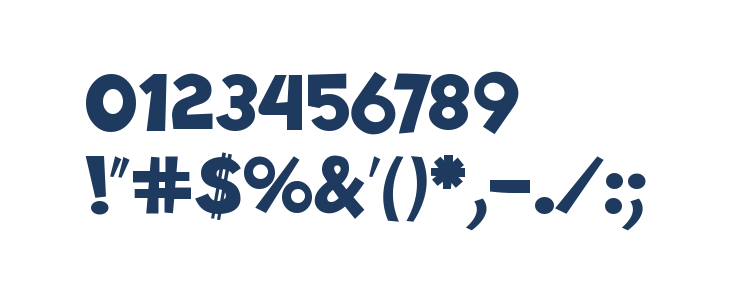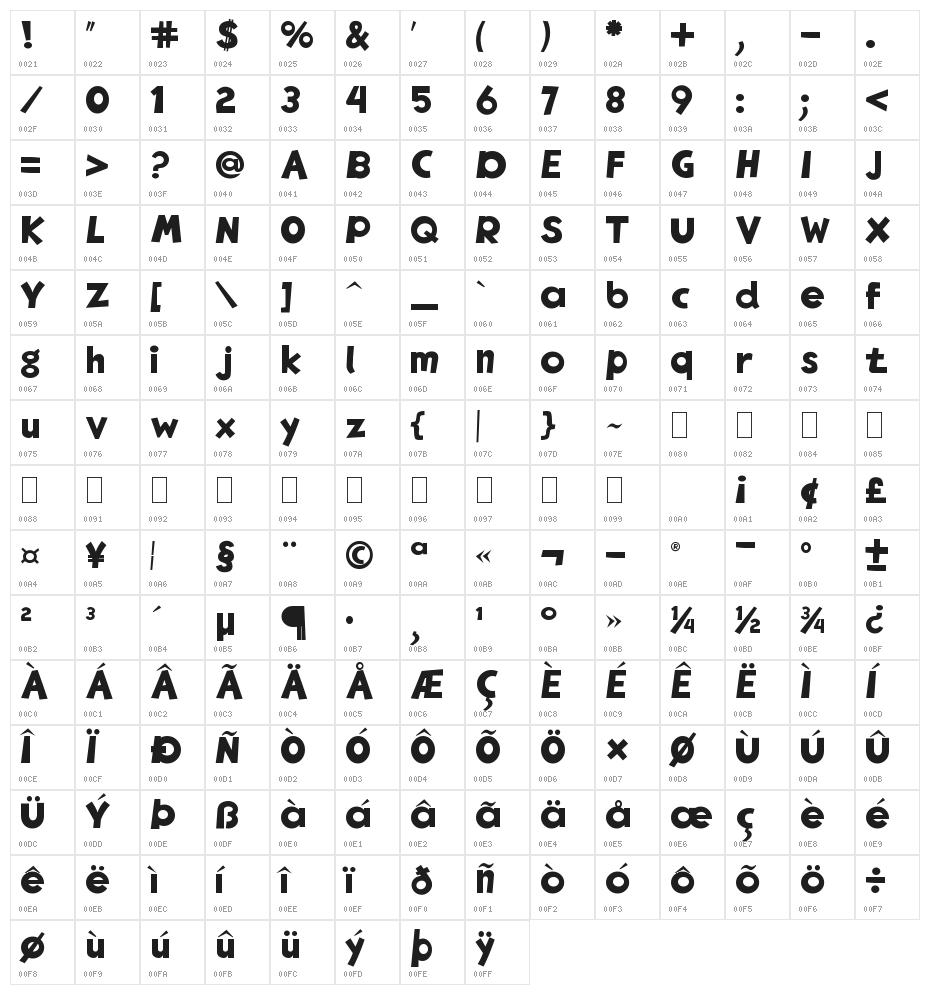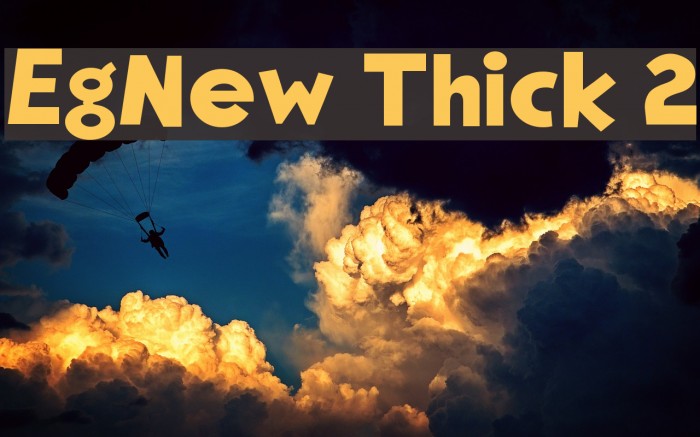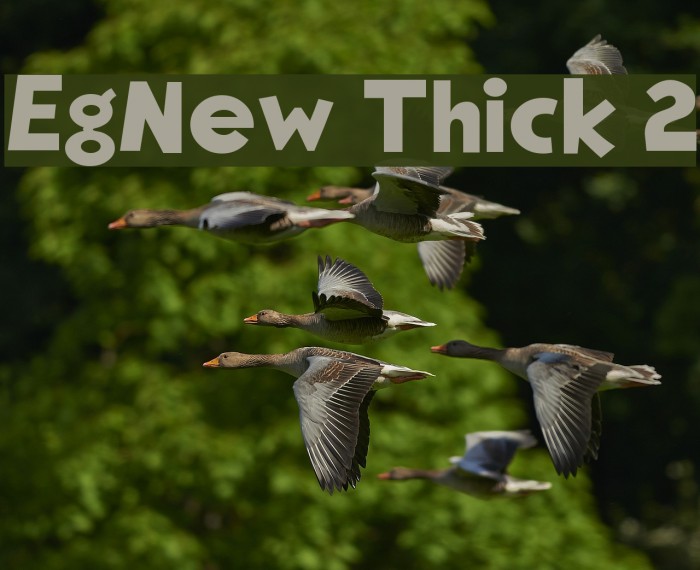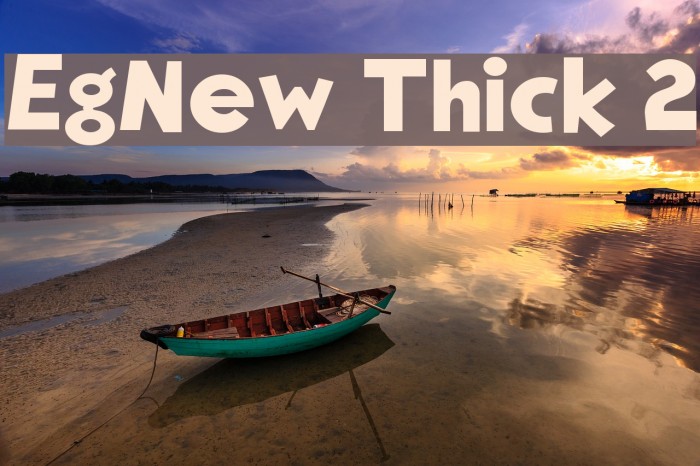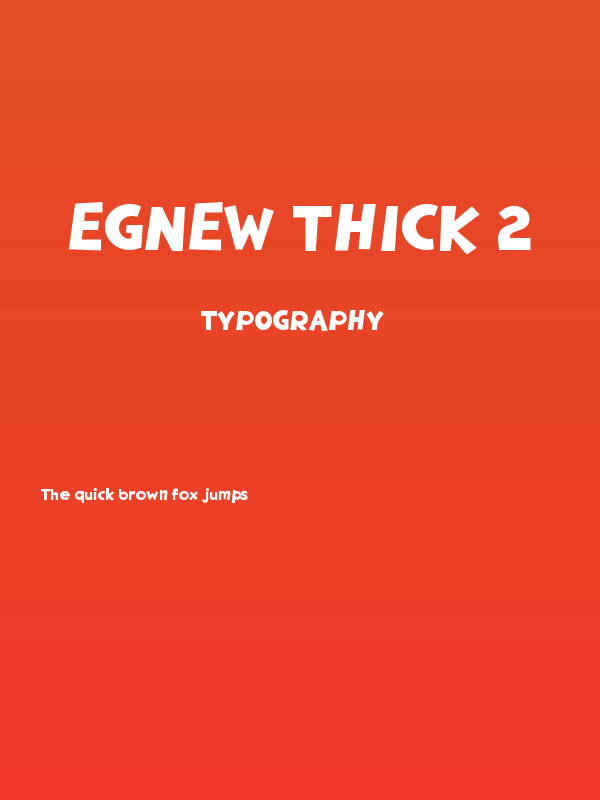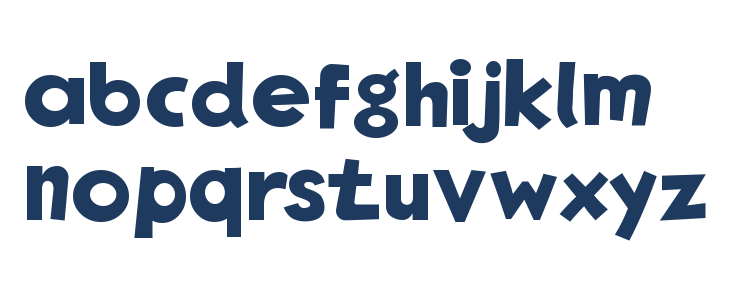
EgNew Thick 2 Font
EgNew Thick 2 Description
This font features a bold and playful design with thick, rounded strokes that give it a strong and friendly appearance. The characters are slightly condensed, which enhances its boldness and makes it suitable for eye-catching headlines or titles. The uppercase letters have a uniform height, while the lowercase letters maintain a consistent baseline, contributing to a cohesive look. The numerals are equally bold, ensuring they stand out in any context. Special characters are well-integrated, maintaining the overall style and weight of the font. Its high contrast and unique style make it ideal for creative projects that require a modern and dynamic touch.